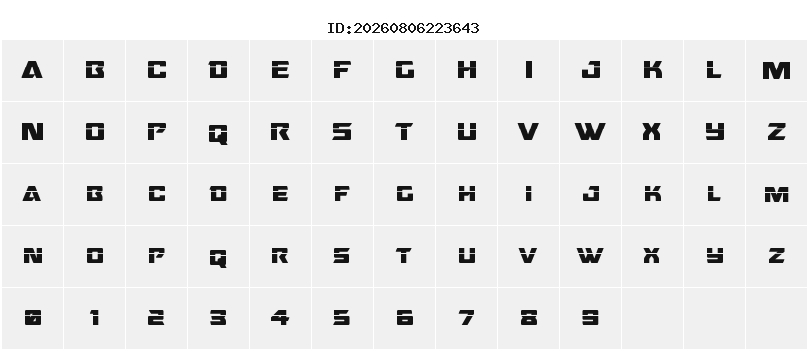
About Oceanic Drift Laser.ttf
Oceanic Drift Laser.ttf is a modern, elegant sans-serif font designed for ultimate readability and visual harmony. Perfect for branding, headlines, web design, and print materials.